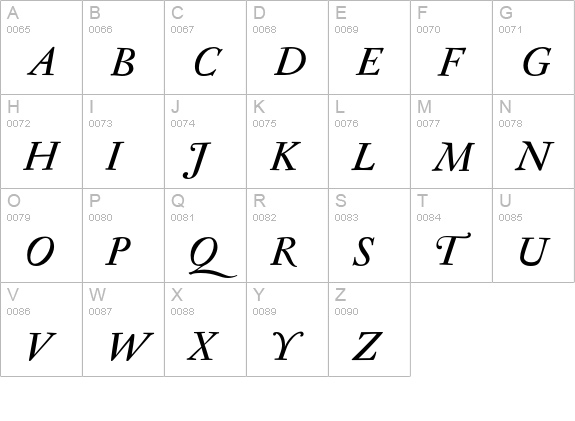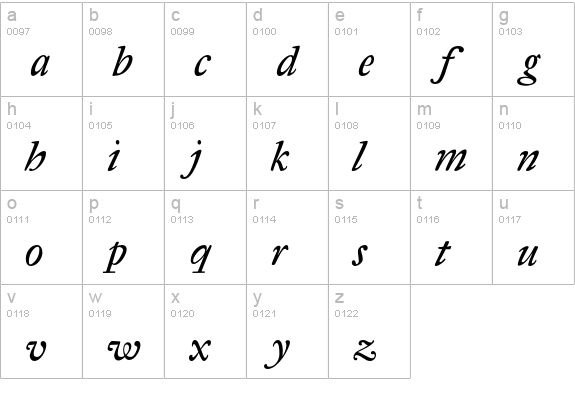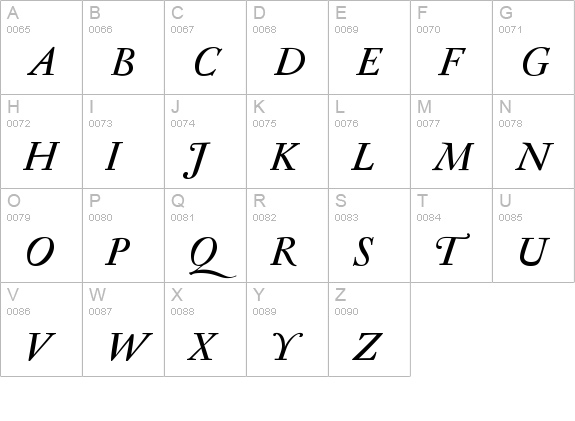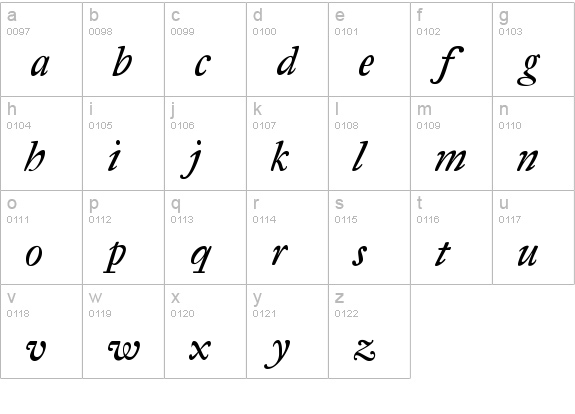
Antique Regent CE Italic Font Details
Antique Regent CE Italic is a distinctive, italic variant in the Antique typeface family \xE2\x80\x94 well suited to design and typography projects.
Antique Regent CE Italic font exudes a timeless elegance and sophistication that is perfect for adding a touch of class to your designs. The graceful curves and flourishes of this font give it a regal and antique feel, making it ideal for projects that require a touch of vintage charm. This exquisite font is available for free download at FontsMarket.com, making it accessible to all designers looking to elevate their work with a touch of old-world charm. Whether you're working on invitations, logos, or branding materials, Antique Regent CE Italic font is sure to make a lasting impression with its classic beauty and refined style. Don't miss out on the opportunity to enhance your designs with this stunning font that effortlessly blends tradition with modernity.